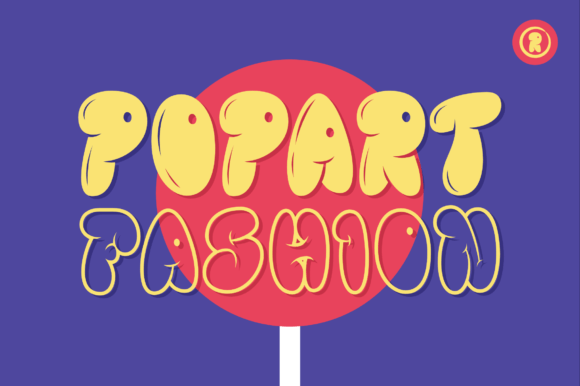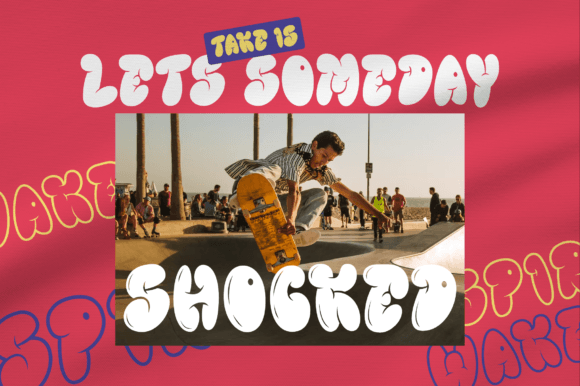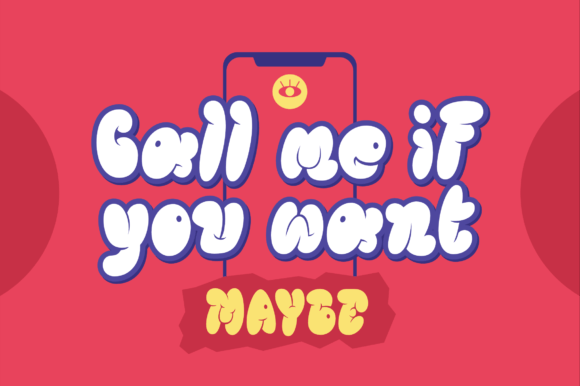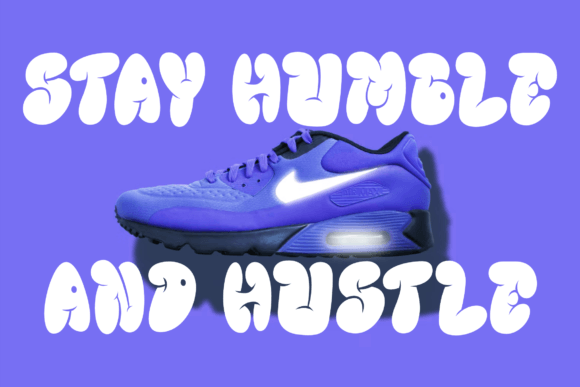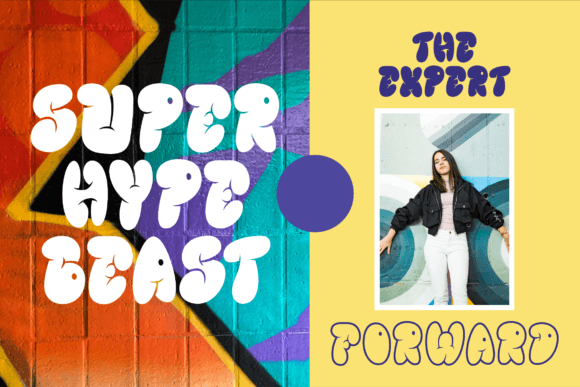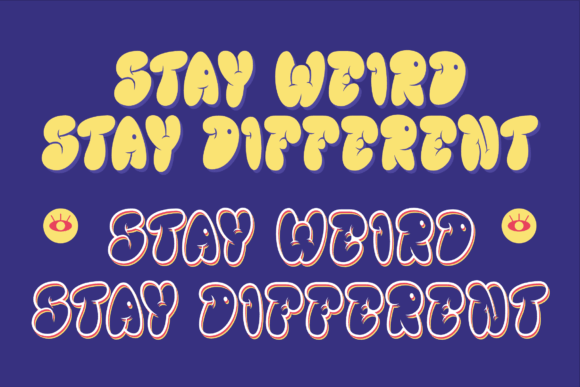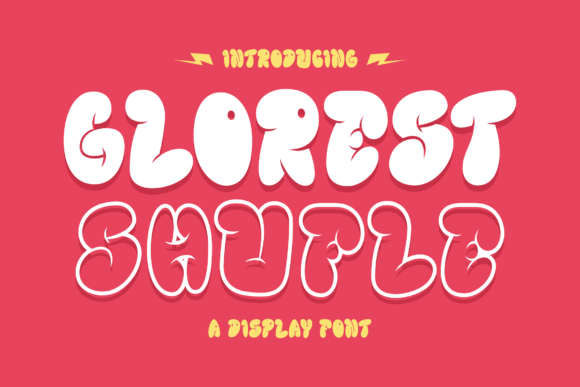
Glorest Shufle Font: The Ultimate Addition to Your Fun and Playful Designs
Are you tired of using the same old fonts for your party invitations, social media graphics, and craft projects? Look no further than Glorest Shufle, a cool, incredibly cute, and bubbly display font that’s sure to add a touch of youth and joy to any design. In this article, we’ll dive into the world of Glorest Shufle and explore its features, uses, and benefits for designers and crafters.
What is Glorest Shufle Font?
Glorest Shufle is a display font designed to make a statement. Its playful, bubbly, and energetic vibe makes it perfect for designs that require a youthful and fun touch. Whether you’re creating party invitations, social media graphics, or craft projects, Glorest Shufle is the ideal font to add a dash of personality and whimsy.
Key Features of Glorest Shufle Font
- Playful and Bubbly Design: Glorest Shufle features a unique, hand-drawn design that’s full of energy and playfulness.
- Display Font: This font is specifically designed for display purposes, making it perfect for headlines, titles, and short text.
- Cute and Youthful Vibe: Glorest Shufle exudes a sense of fun and joy, making it ideal for designs that require a youthful and lively feel.
- Multipurpose: This font can be used for a wide range of designs, from party invitations to social media graphics, craft projects, and more.
Uses for Glorest Shufle Font
Glorest Shufle is an incredibly versatile font that can be used for various design projects. Here are some ideas to get you started:
- Party Invitations: Add a touch of fun and excitement to your party invitations with Glorest Shufle.
- Social Media Graphics: Use Glorest Shufle to create eye-catching social media graphics that showcase your personality and brand.
- Craft Projects: Glorest Shufle is perfect for craft projects, such as scrapbooking, card making, and DIY tutorials.
- Swimming Gatherings: Create fun and playful graphics for swimming gatherings, pool parties, or beach events.
Benefits of Using Glorest Shufle Font
So, why should you choose Glorest Shufle for your design projects? Here are some benefits to consider:
- Unique and Eye-Catching: Glorest Shufle is a one-of-a-kind font that will make your designs stand out from the crowd.
- Easy to Read: Despite its playful design, Glorest Shufle is easy to read and understand, making it perfect for short text and headlines.
- Customizable: You can customize Glorest Shufle to fit your brand’s style and personality, making it a versatile addition to your design toolkit.
- Fun and Engaging: Glorest Shufle is designed to evoke a sense of fun and joy, making it perfect for designs that require a playful touch.
Tips for Using Glorest Shufle Font
To get the most out of Glorest Shufle, here are some tips to keep in mind:
- Use it Sparingly: Glorest Shufle is a display font, so use it sparingly to make a maximum impact.
- Pair it with Other Fonts: Experiment with pairing Glorest Shufle with other fonts to create a unique and visually appealing design.
- Experiment with Colors: Glorest Shufle looks great in a variety of colors, so don’t be afraid to experiment and find the perfect hue for your design.
Glorest Shufle is a fun, playful, and incredibly cute display font that’s perfect for designers and crafters looking to add a touch of youth and joy to their designs. With its unique design, versatility, and ease of use, Glorest Shufle is an excellent addition to any design toolkit. So why not give it a try and see how it can elevate your designs to the next level?